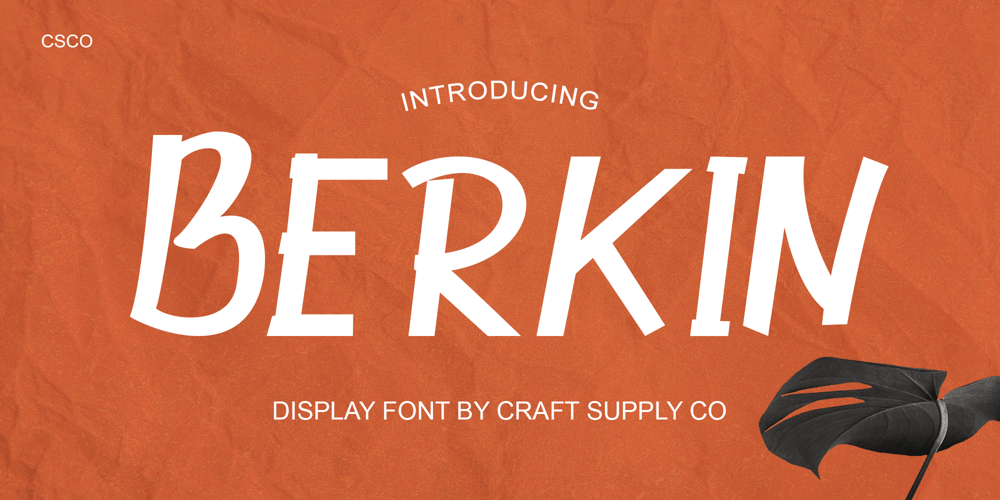
Berkin Font Family was designed by Trio Nazzar Saputra, Wahyu Hadi Yuana and published by Craft Supply Co. Berkin contains 1 styles and family package options. Berkin – Display Font is a captivating sans-serif typeface that breaks free from monotony with its playful and eye-catching design. Its stems and letterforms carry a dynamic and non-uniform style that instantly grabs attention, making it perfect for display purposes.Berkin’s unique design adds a sense of energy and spontaneity to your projects, ensuring that they stand out in a crowd. Whether you’re creating eye-catching headlines, signage, or branding materials, Berkin injects a distinctive and lively personality. This font is like a burst of creativity in the world of typography, making it an exceptional choice for projects that demand a playful and attention-grabbing aesthetic. Berkin’s playful and non-conformist approach ensures your designs are unforgettable and exude an enthusiastic and dynamic vibe.